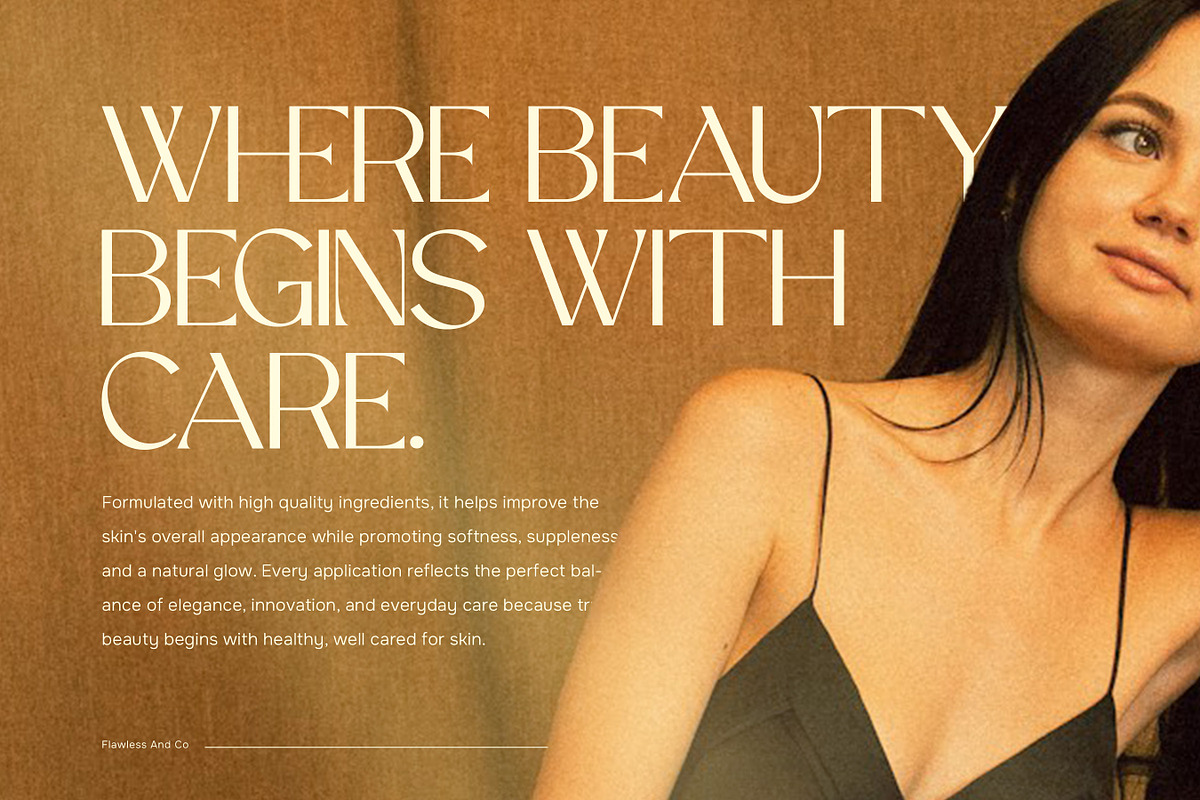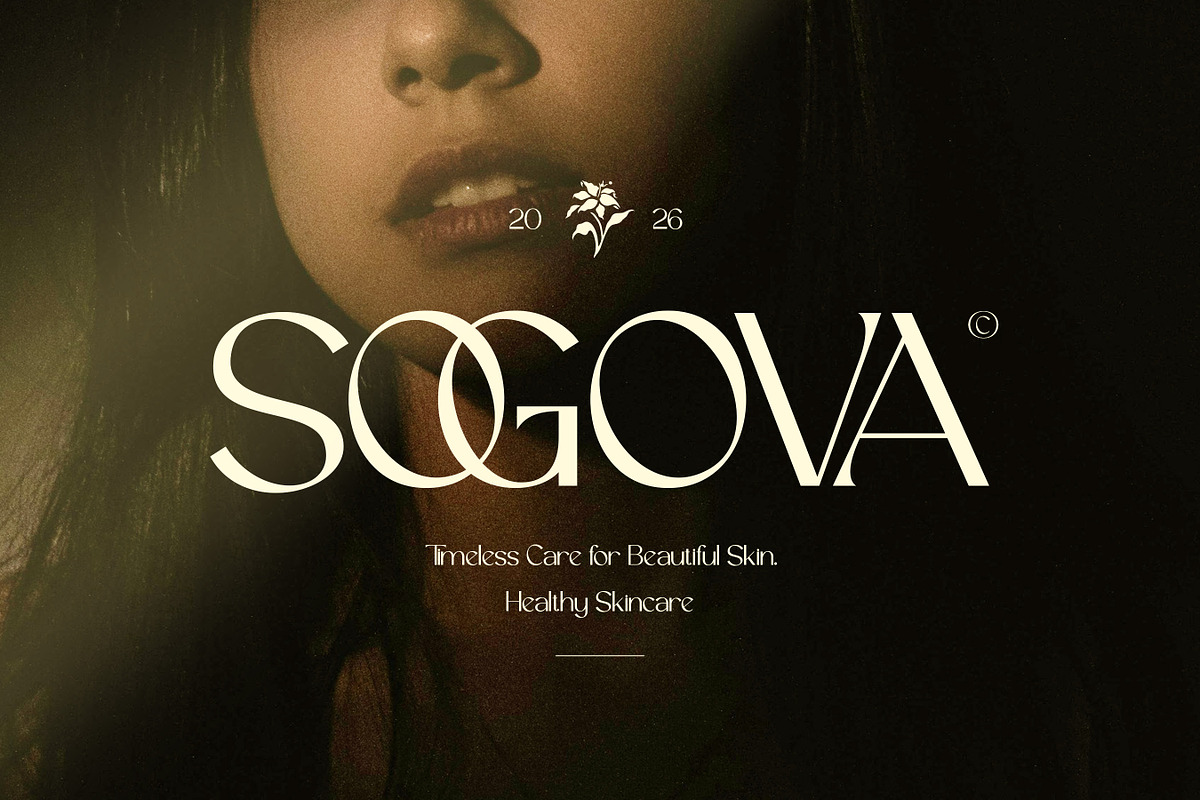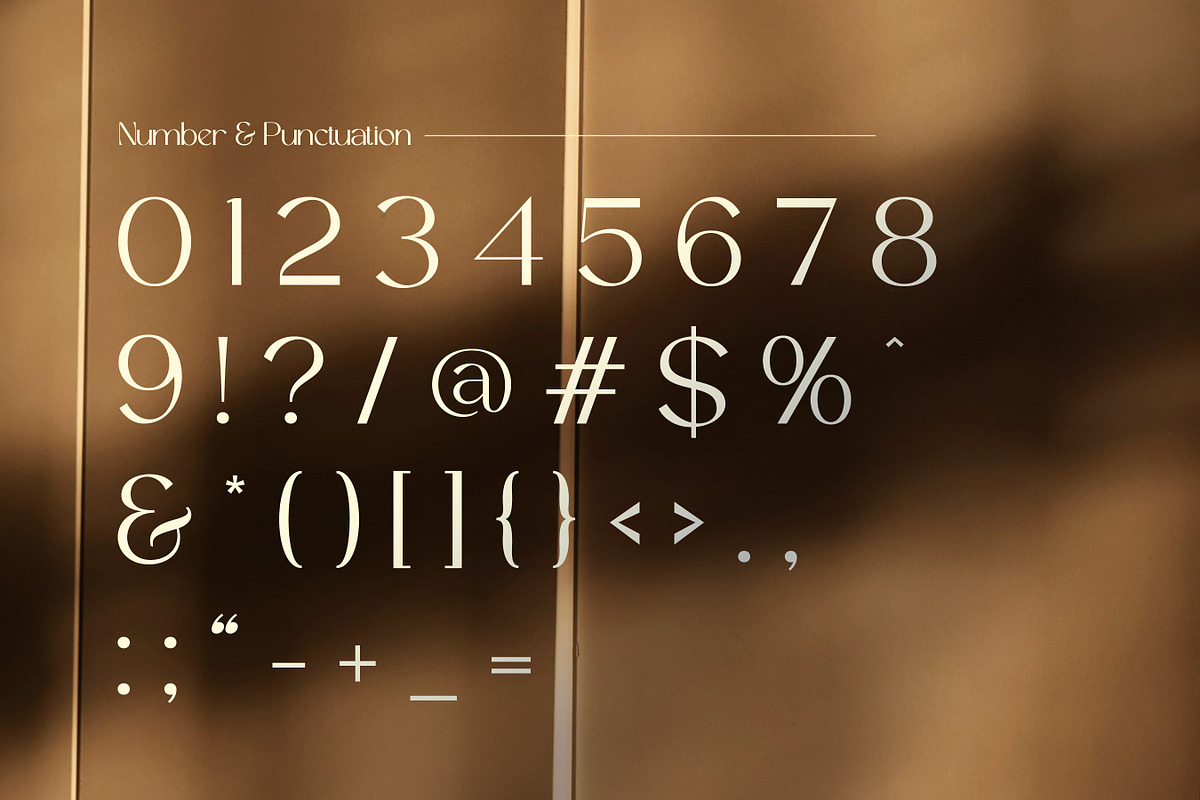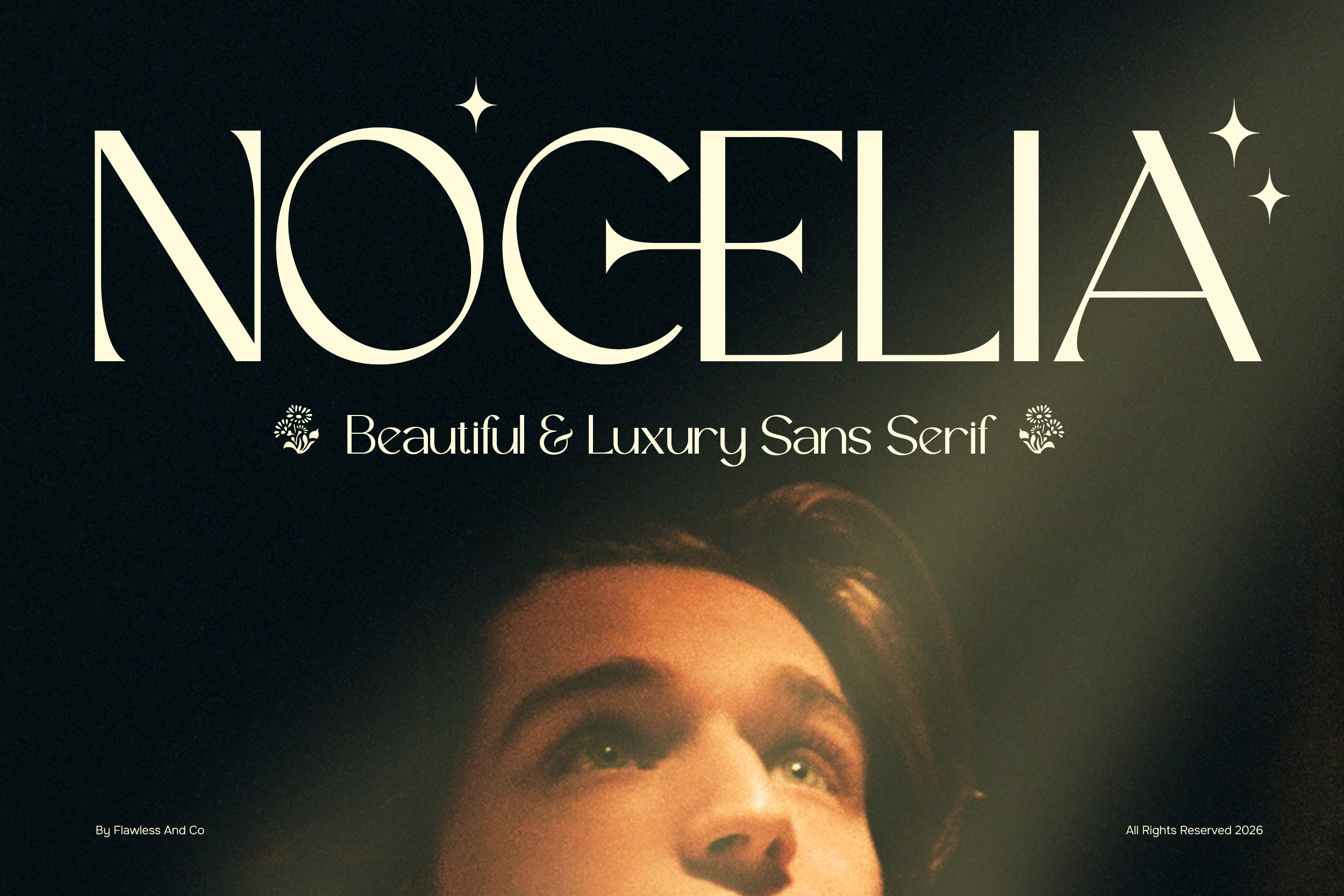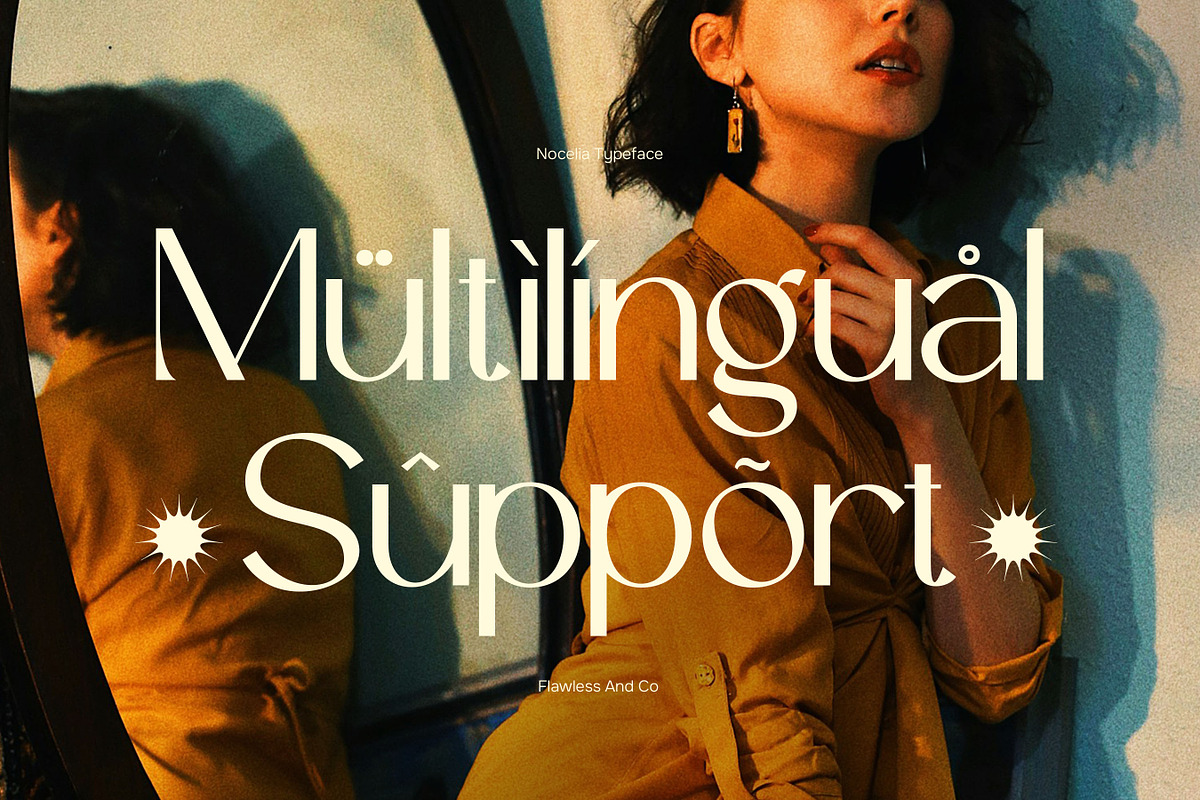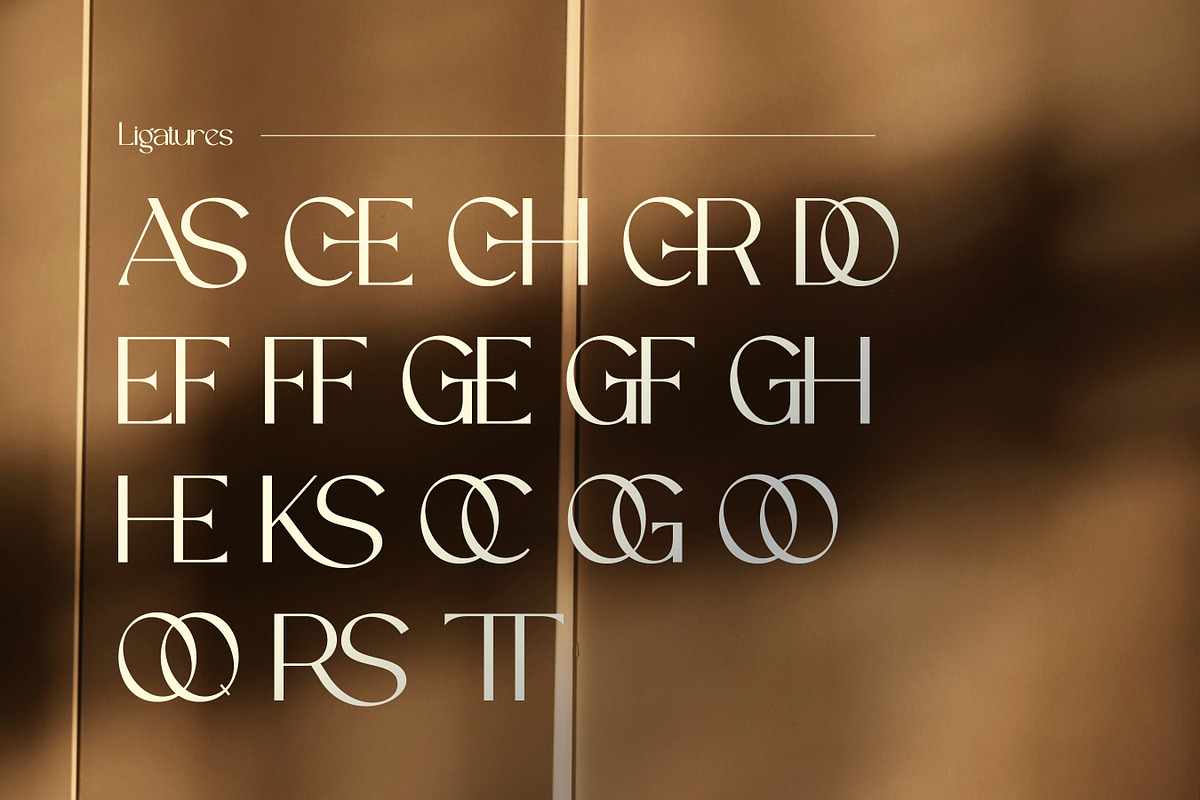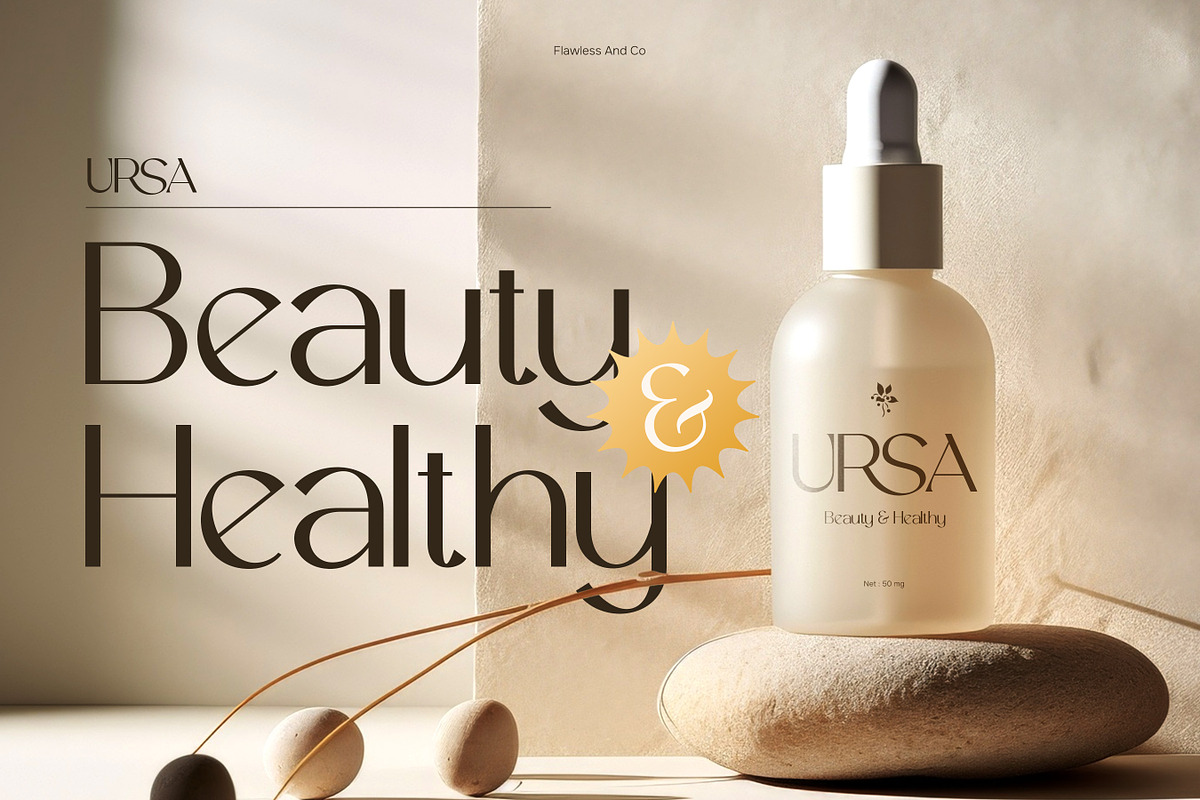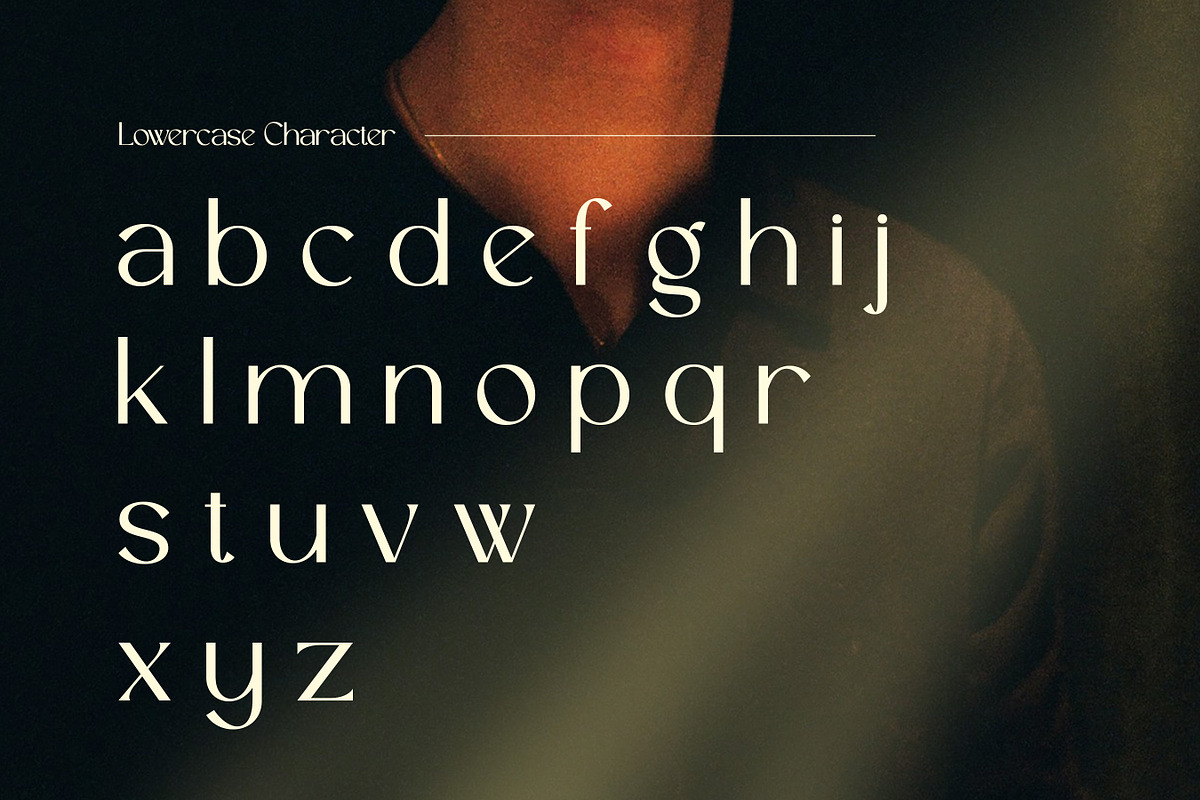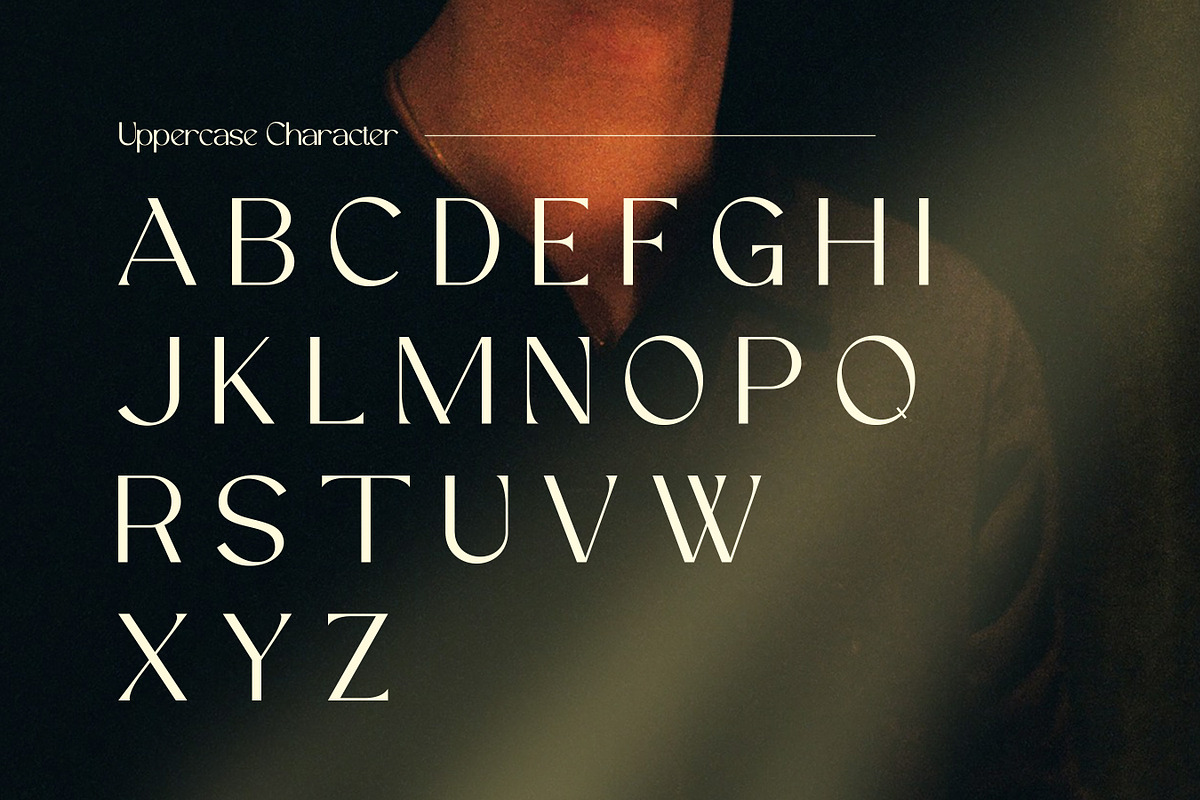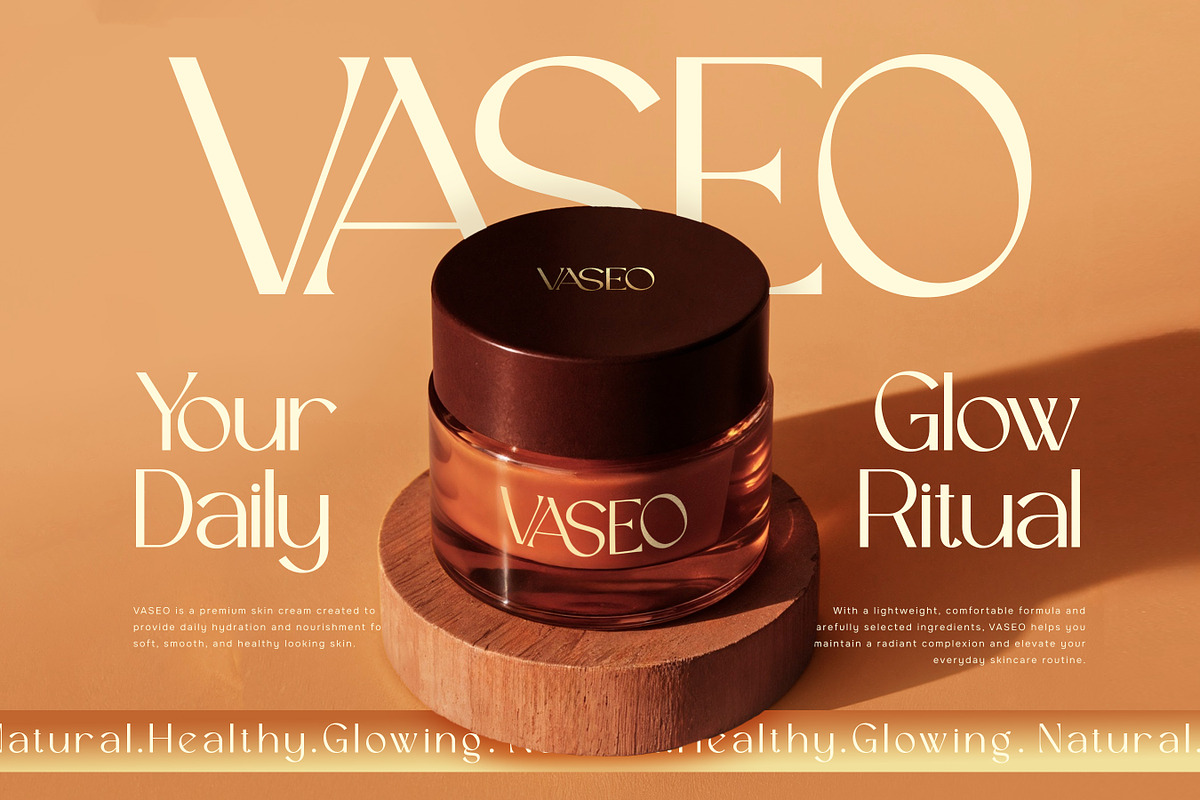
Nocelia - Luxury Sans Serif Font
Nocelia is where modern minimalism meets effortless luxury. Designed with elegant curves, refined proportions, and a beautifully clean silhouette, Nocelia transforms simple typography into a statement of sophistication. Its graceful sans serif forms create a soft yet confident presence, allowing every word to feel polished, premium, and undeniably beautiful.
More than just a typeface, Nocelia is a design companion for brands that appreciate subtle elegance over excess. Every character is thoughtfully crafted to deliver a harmonious balance between clarity and style, making it equally stunning in bold headlines, delicate logos, and refined editorial layouts. Its contemporary aesthetic blends seamlessly with luxury branding, giving your projects a fresh, upscale identity that never goes out of style.
Alternates & Ligatures
Who Should Use Nocelia?
Nocelia is made for designers, luxury brands, boutique studios, creative entrepreneurs, and lifestyle businesses seeking a modern sans serif that embodies elegance, beauty, and contemporary refinement. It’s the perfect choice for projects where premium aesthetics and clean typography go hand in hand.
Suitable For:
Luxury fashion and beauty branding
Elegant logos and visual identities
Editorial and magazine design
Premium packaging and product presentation
Boutique and lifestyle brands
Hotel and hospitality marketing
Wedding and event stationery
Modern luxury typography